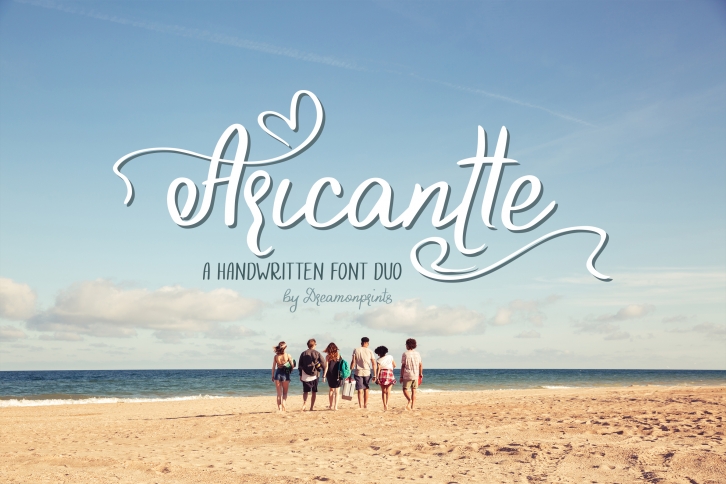
Aricantte - Handwritten Font Duo Download
Aricantte is a gorgeous font that was realeased on June 17, 2019. The font can be used in many style contexts and design environments. Perfect for invitations, magazines, websites, logos, and more! It was designed by DreamONprints and the file size is 1.39 MB. Thanks for checking out this font!